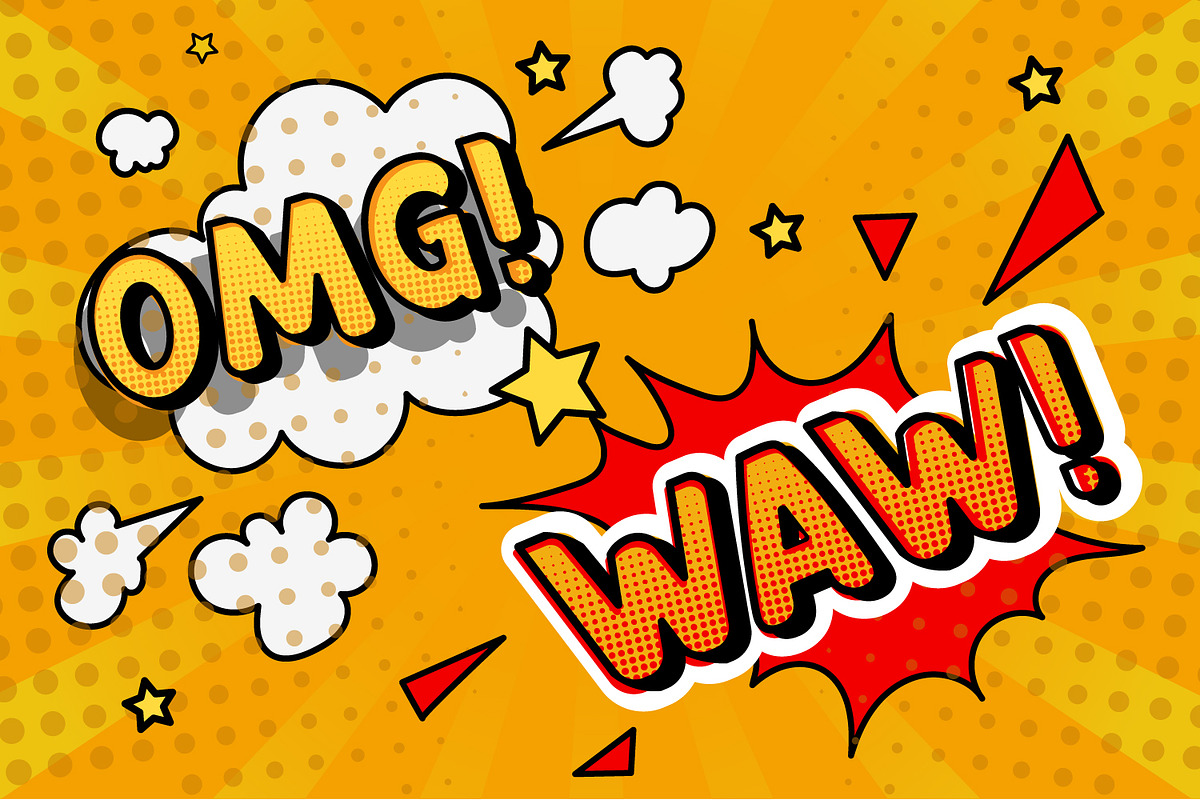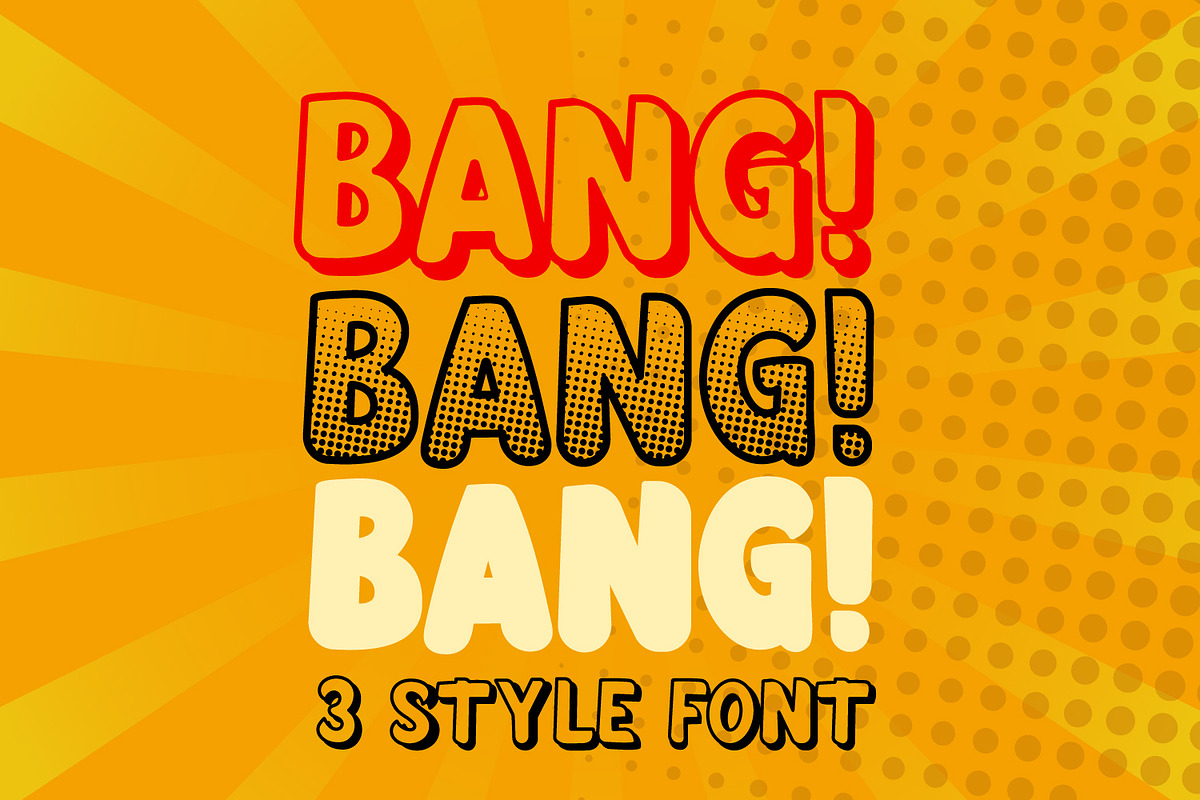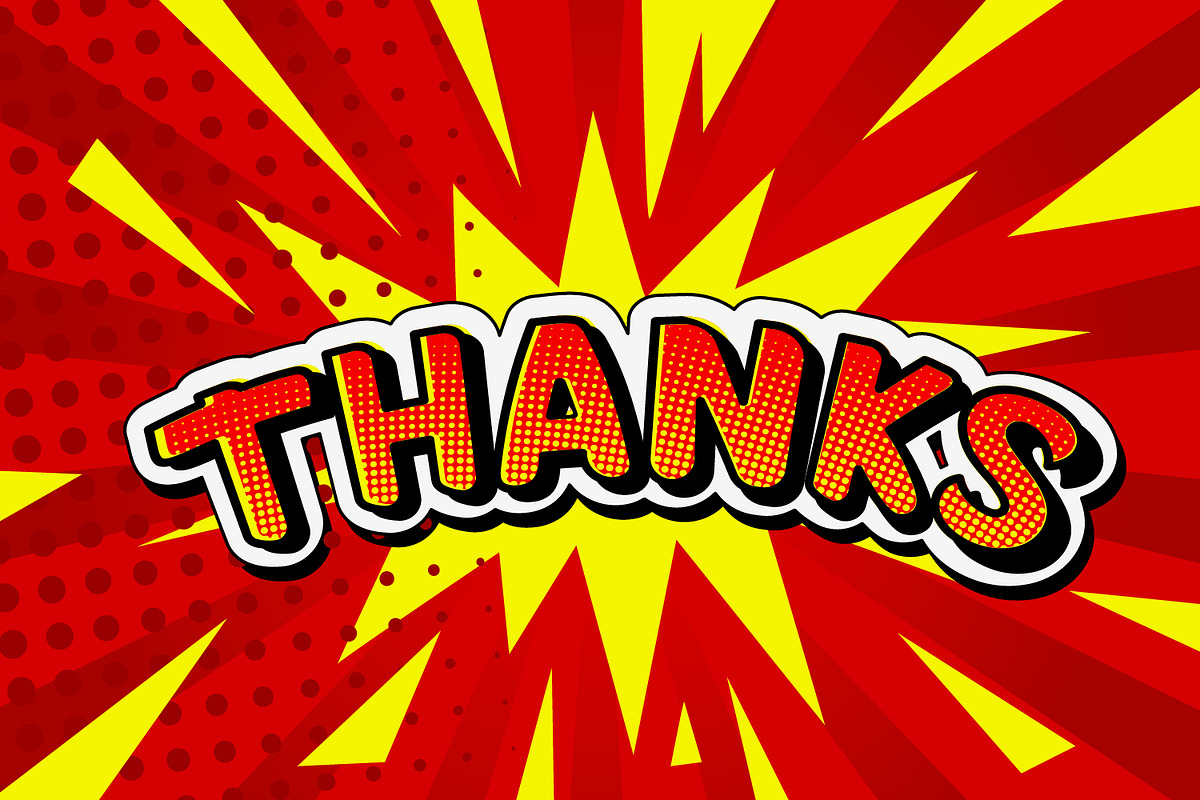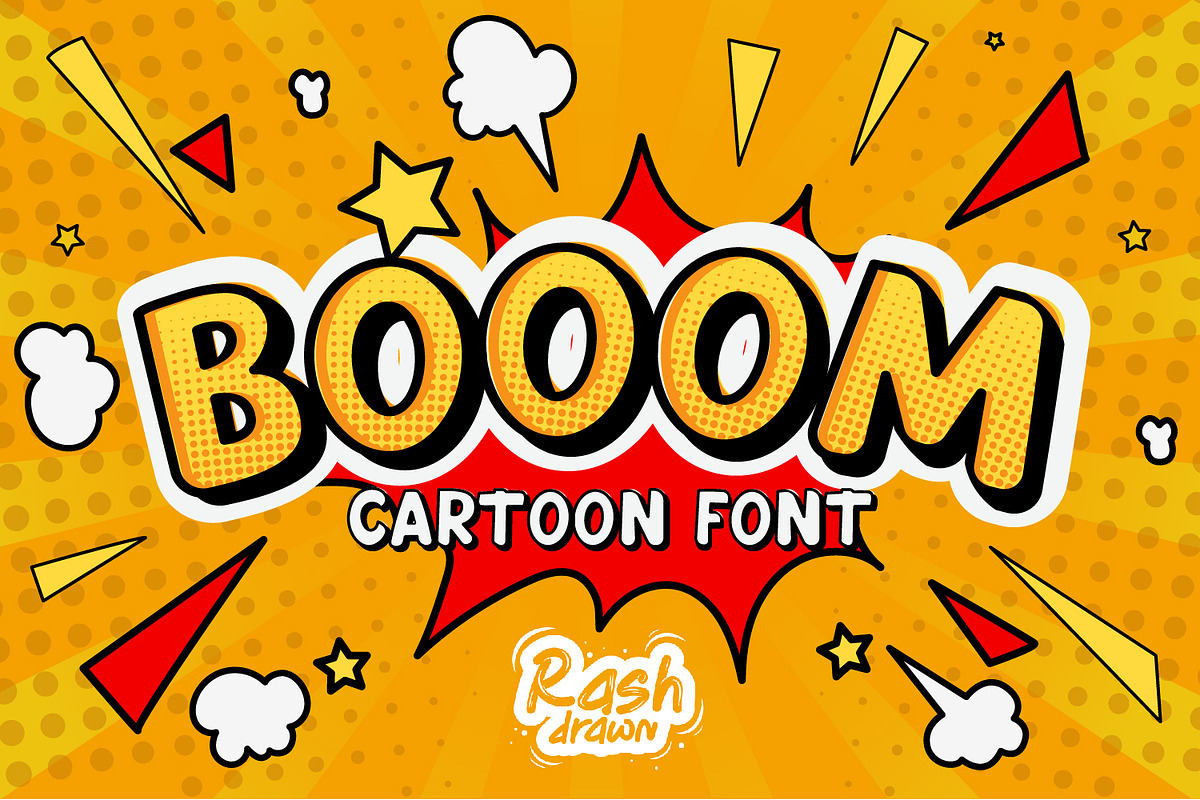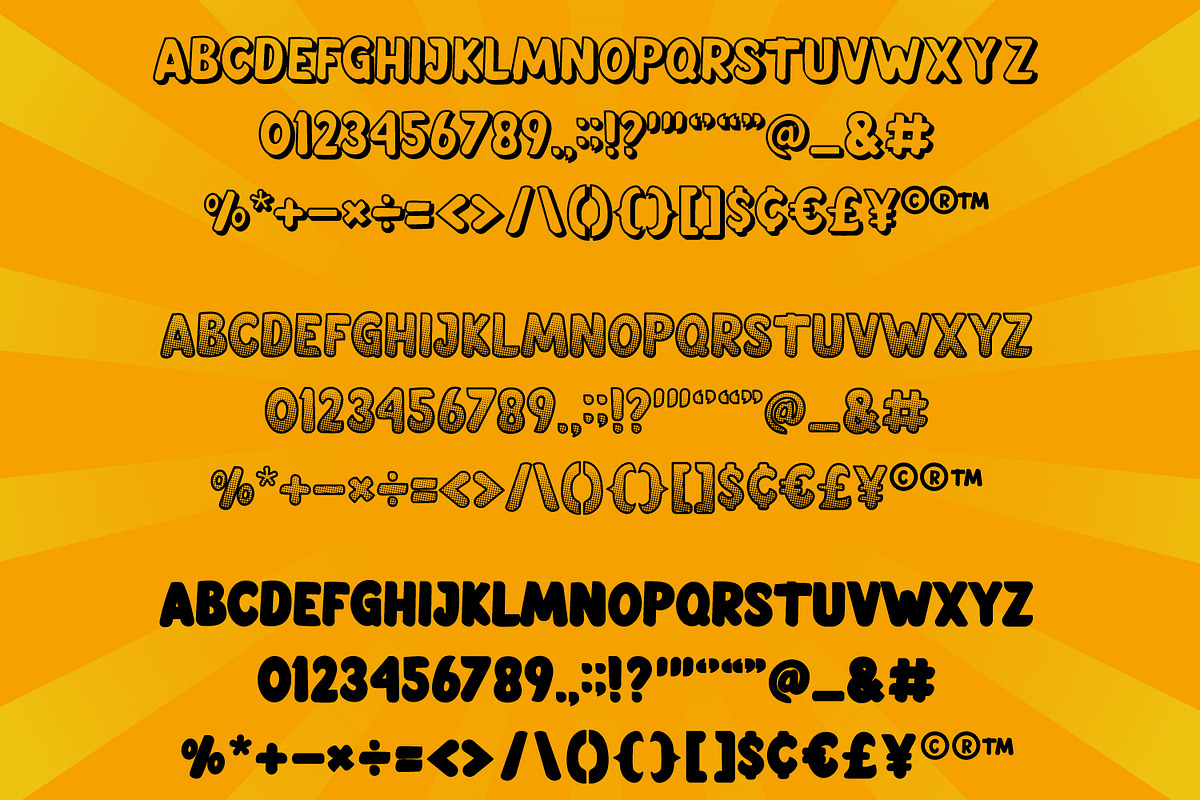
Booom
Booom. The best comic book font there is. The best cartoon font there is. The best superhero font there is! Perfect for that WOW! factors.
A bold and fun font with tons of impact! It is playful and strong. Perfect for kids and children's items yet cool and unique for products with bags of character. Complete with uppercase, lowercase and special characters.